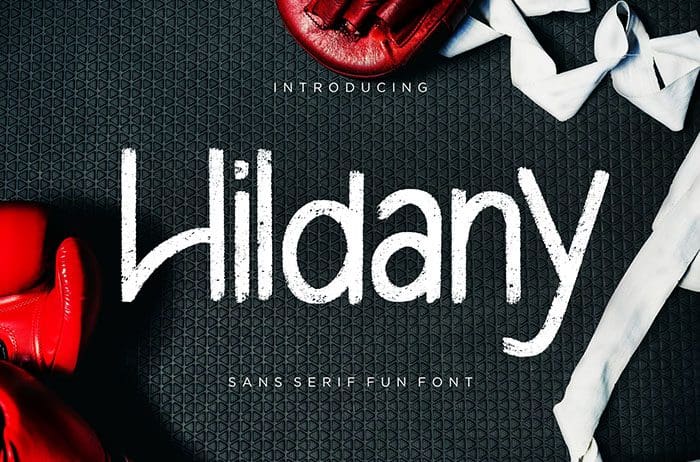
Hildany Sans Serif Font
Hildany is sans serif font with brush hand-drawn. It looks funny, happy, and cheer up. Hildany is perfect for logo, advertisements, labels, and more. Thanks to Creatype Studio for sharing this font! Take a look at this portfolio for more of his stunning fonts.